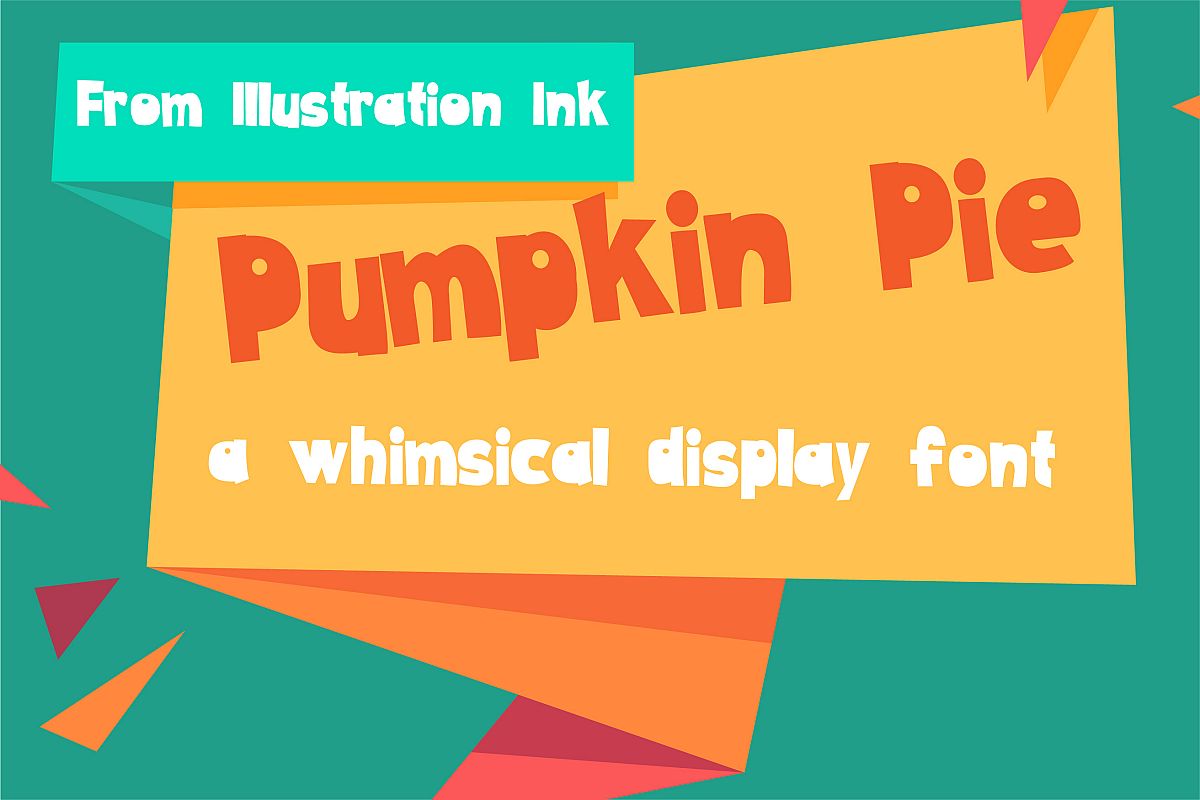
This whimsical display font has big, bold lettering that is great for titles, displays, posters and more. There is a bonus pumpkin and pumpkin pie that you can access through your system's character map.